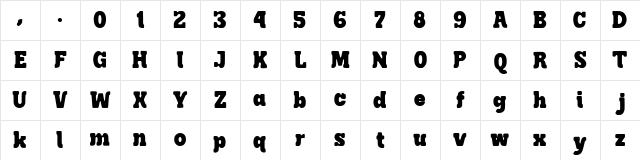
Troops Display Regular
Designer: Bagus Arya Kirana
Design Context for Troops Display
Troops Display is built around its visual character rather than neutral utility - its distinctive forms are designed to make an impression at display sizes.
Font Pairing: Pair with a clean neutral sans-serif for body copy to let Troops Display's character lead without overwhelming the composition.
Pro Tip: Use Troops Display exclusively at display sizes - it was designed to be seen, not read at length. Let a neutral companion handle body copy.